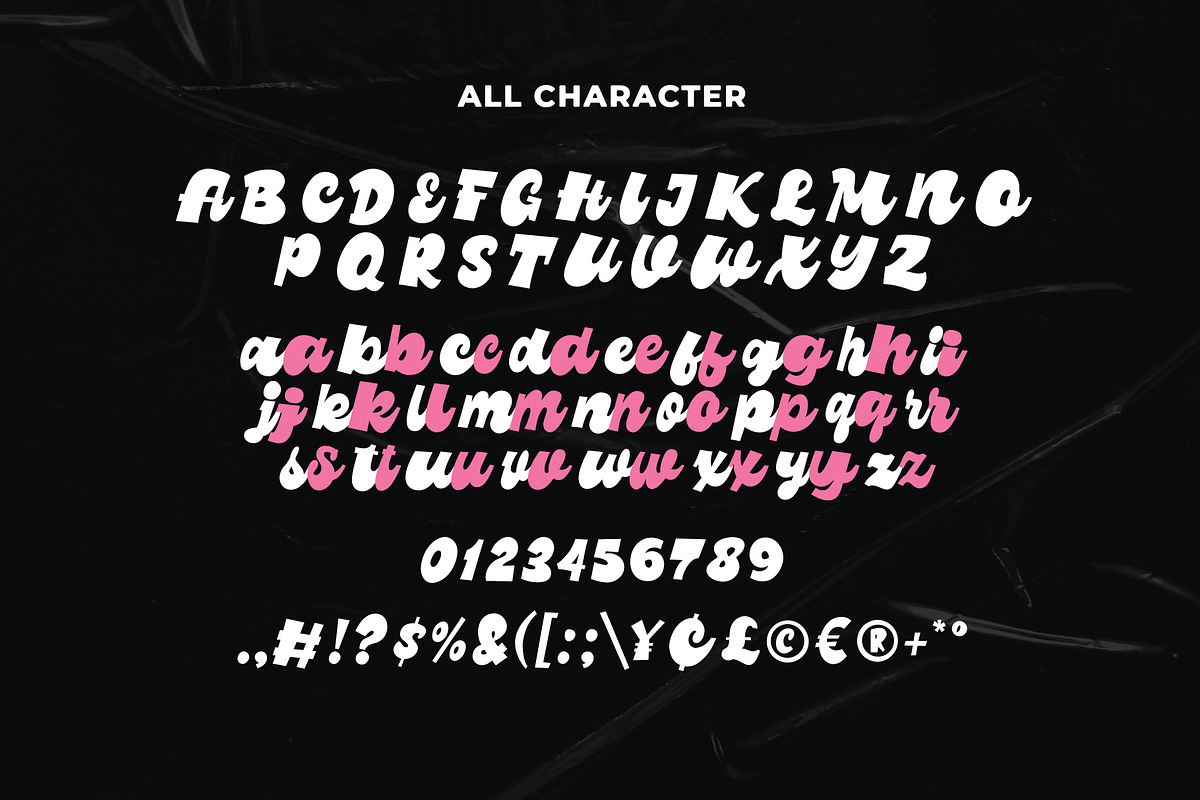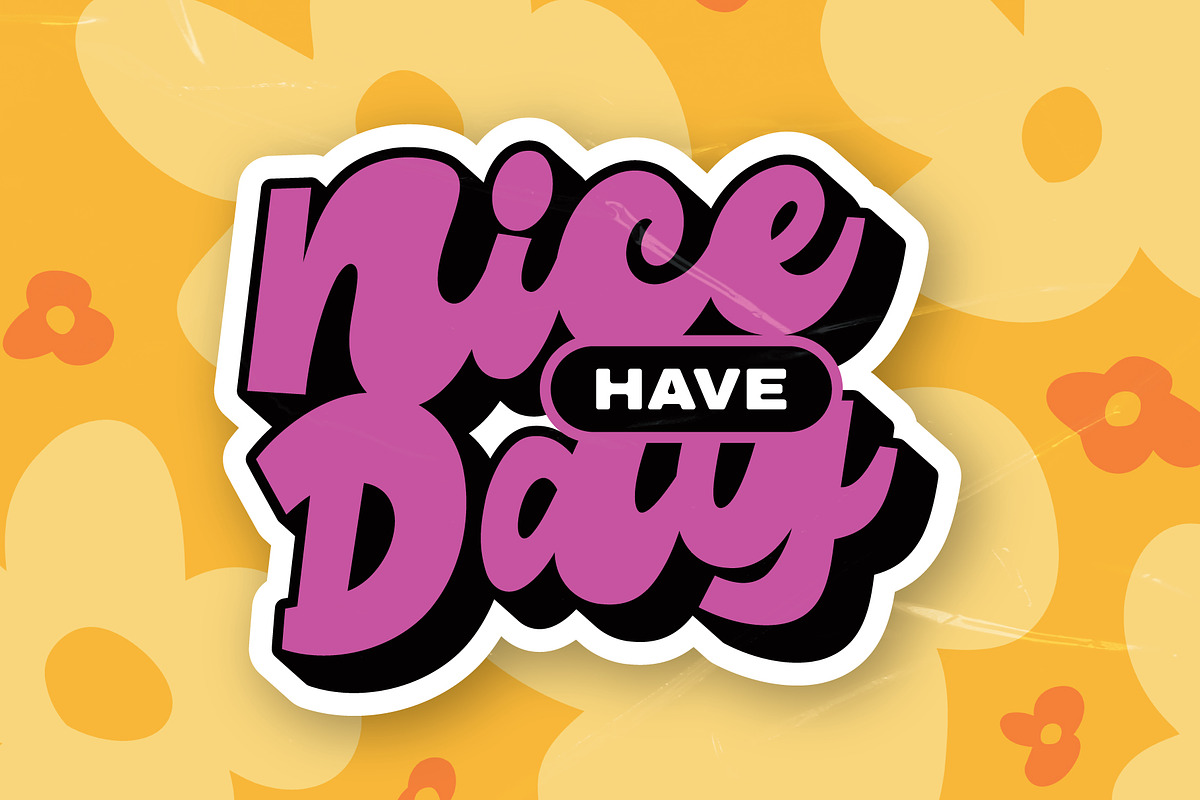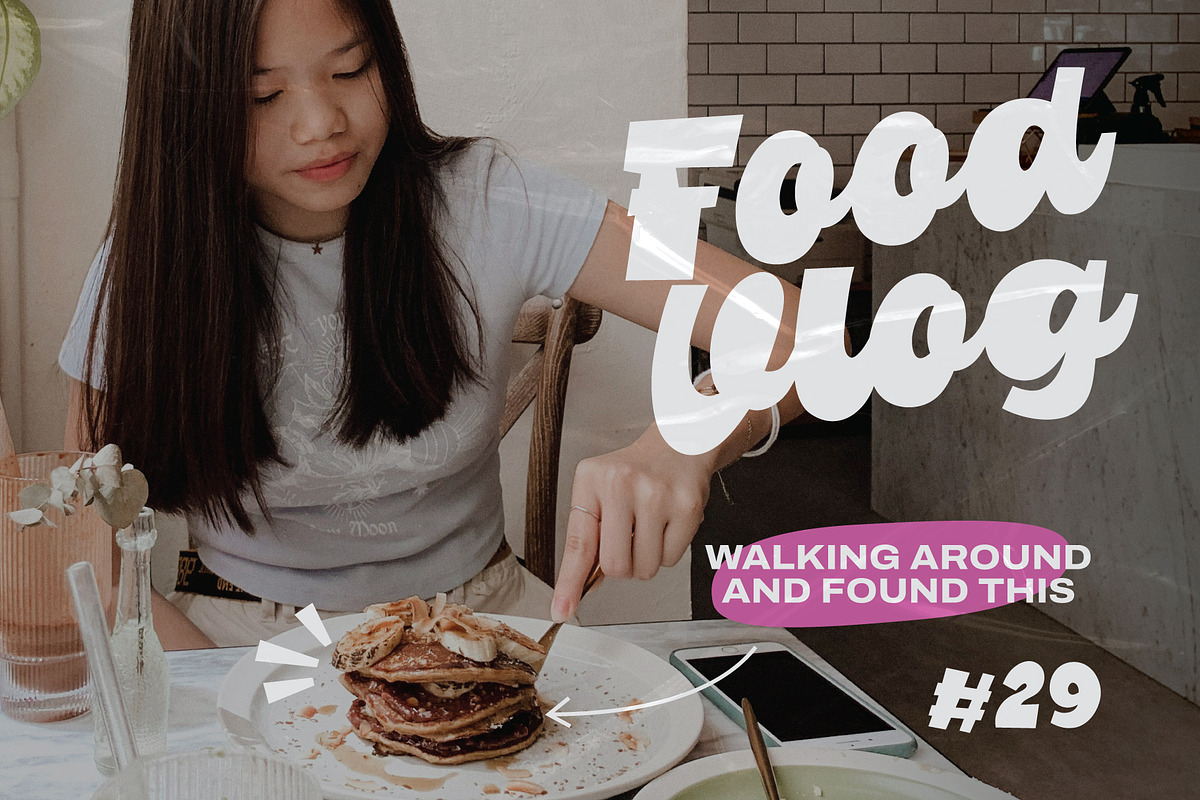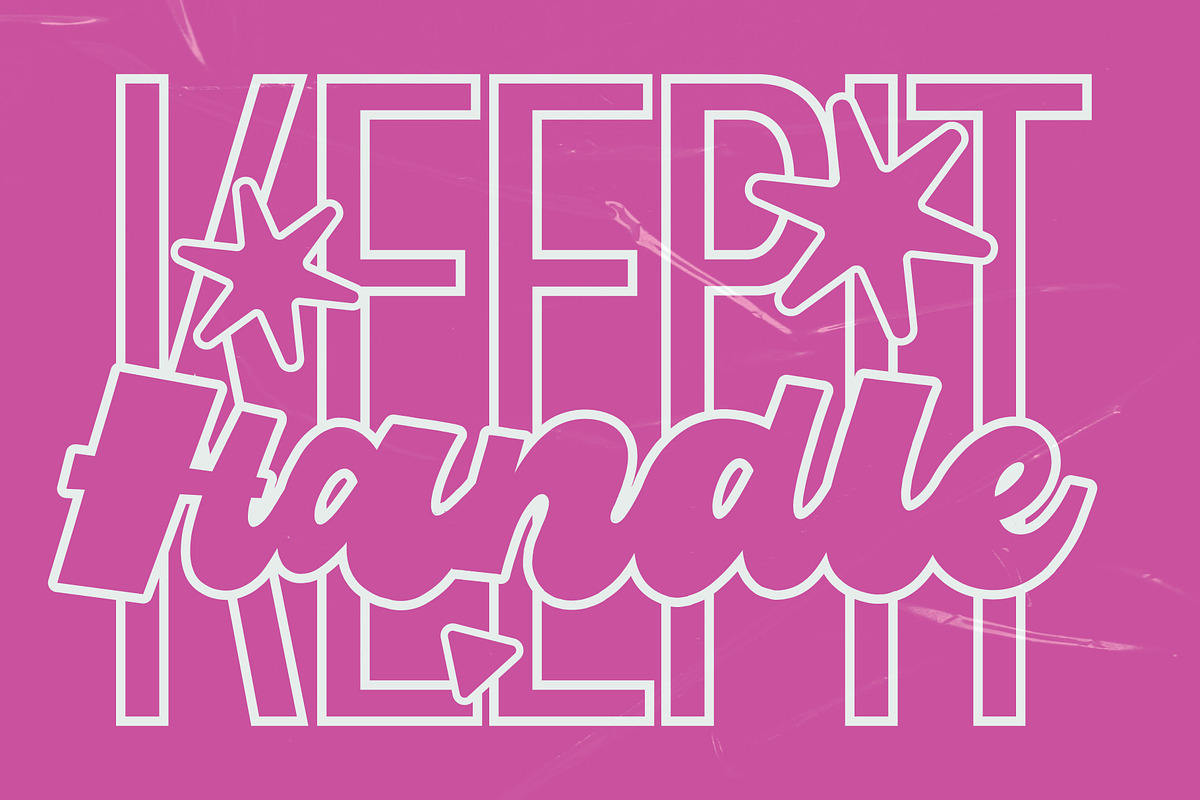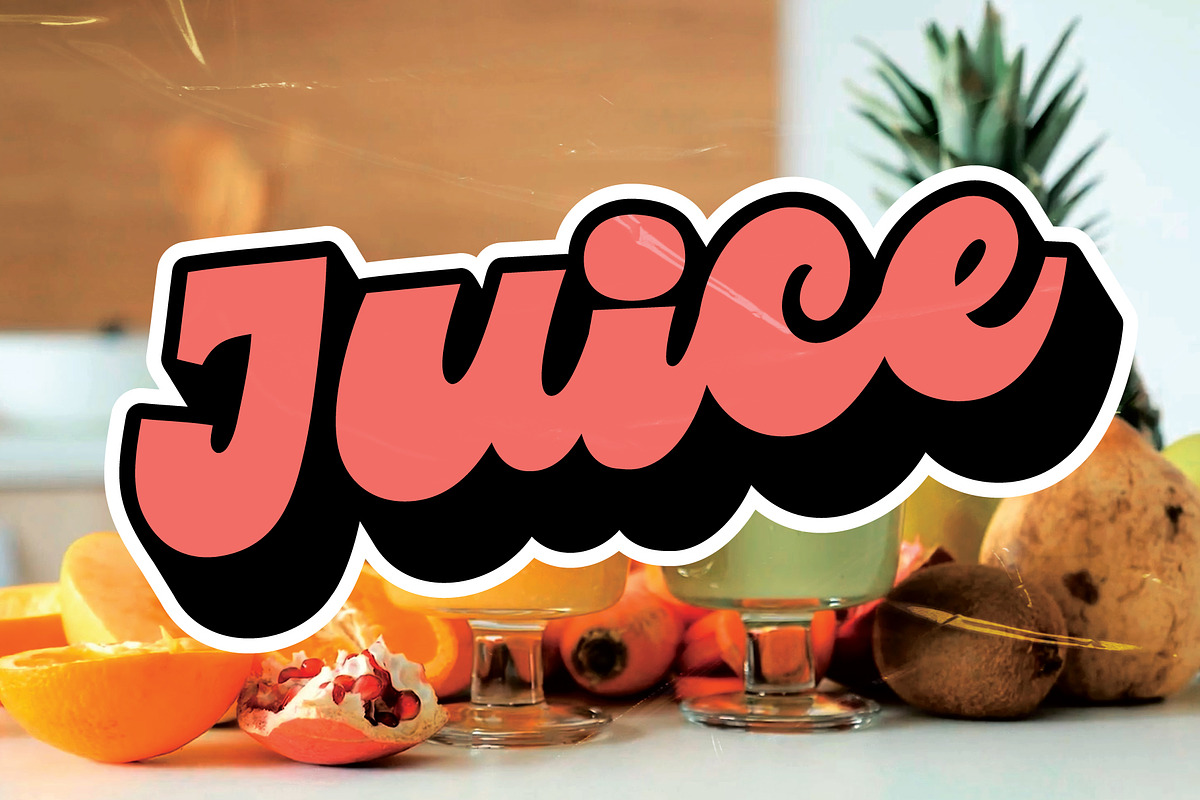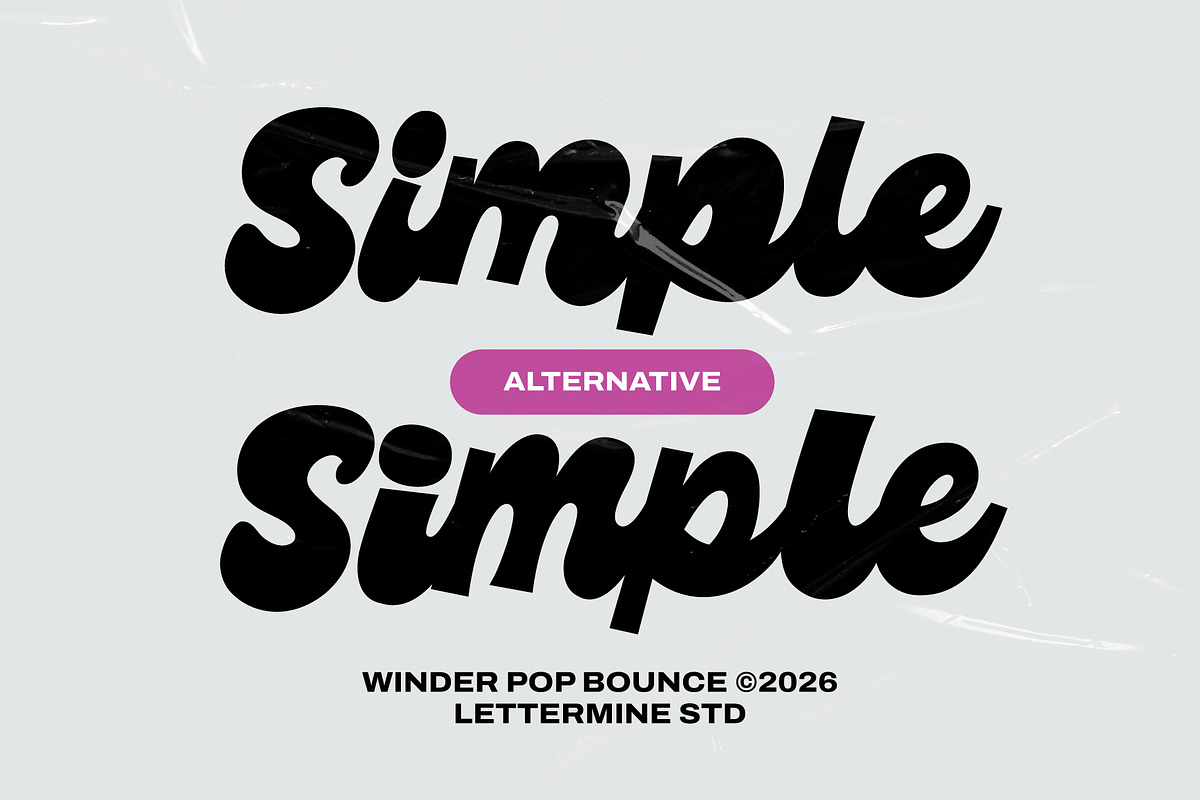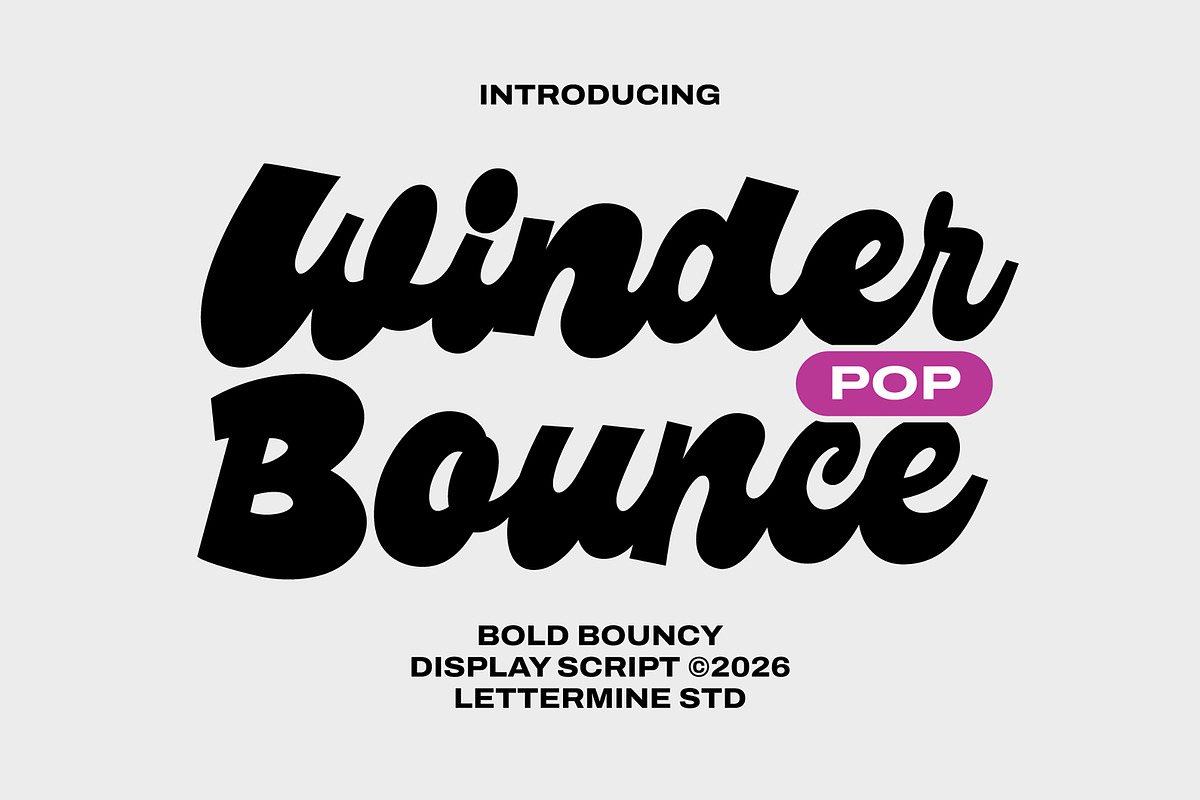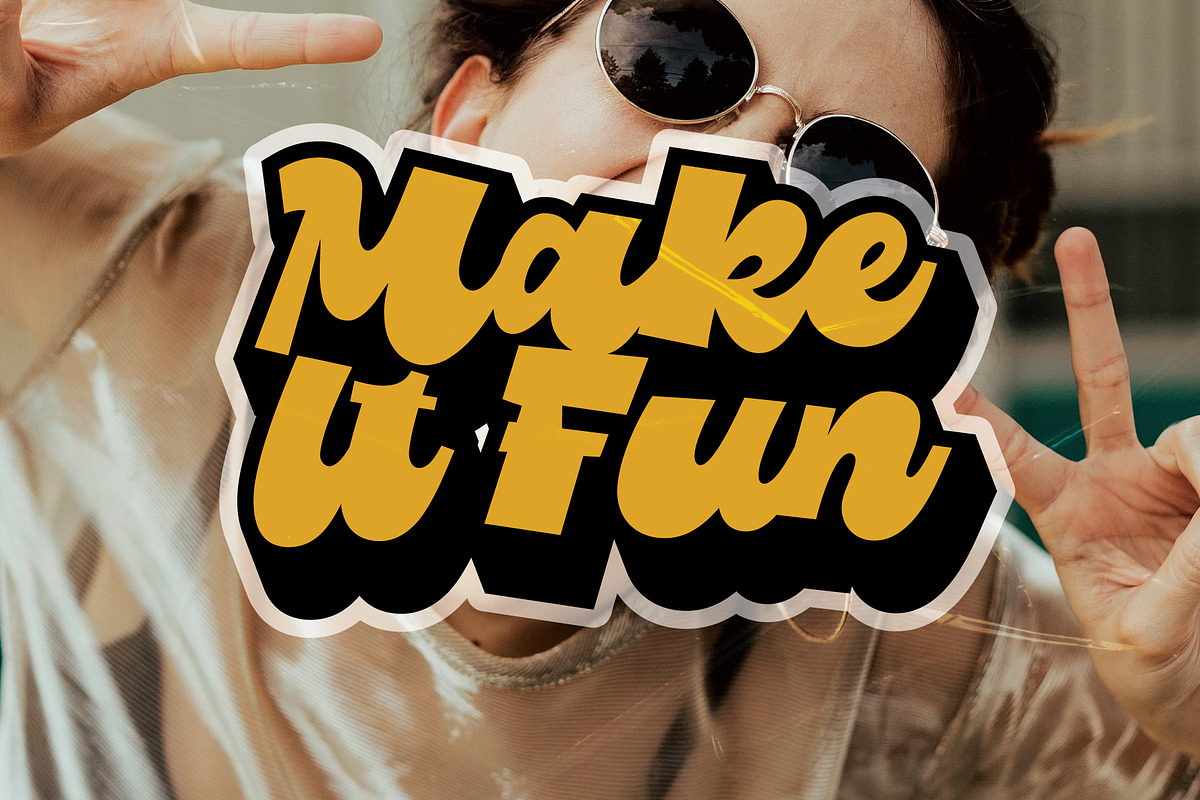
Winder Pop Bounce – Display Script
Winder Pop Bounce is a bold and playful display script font designed with thick strokes and energetic curves. Its bouncy letterforms and strong visual presence make it perfect for eye-catching headlines and high-impact designs. With a fun yet confident personality, this typeface brings a lively and modern vibe to any creative project.
Note: Create bold, fun, and attention-grabbing designs with the dynamic energy of Winder Bounce. Perfect for YouTube thumbnails, branding, posters, logos, packaging, and social media content.